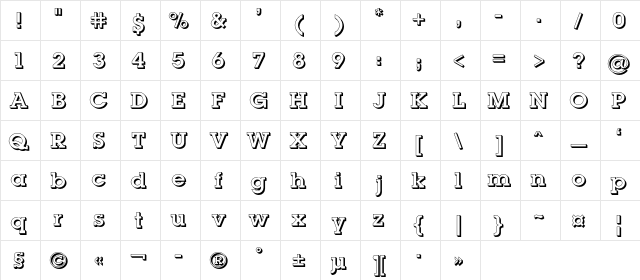
LugaShadowC Regular
Design Context for LugaShadowC Typeface
LugaShadowC is built around its visual character rather than neutral utility — its distinctive forms are designed to make an impression at display sizes.
Font Pairing: Pair with a clean neutral sans-serif for body copy to let LugaShadowC's character lead without overwhelming the composition.
Pro Tip: Use LugaShadowC exclusively at display sizes — it was designed to be seen, not read at length. Let a neutral companion handle body copy.